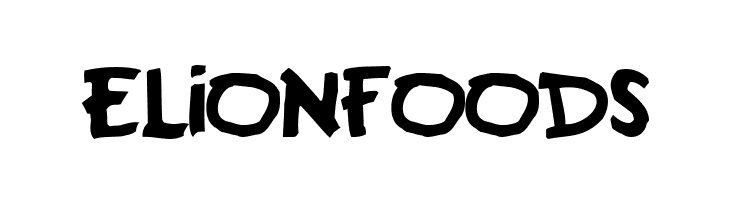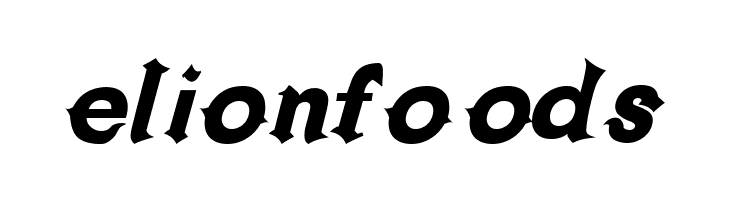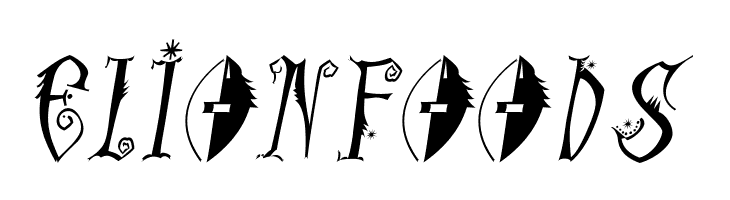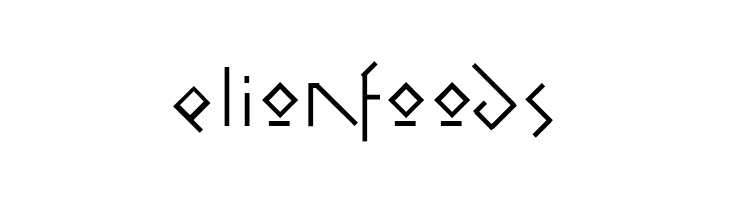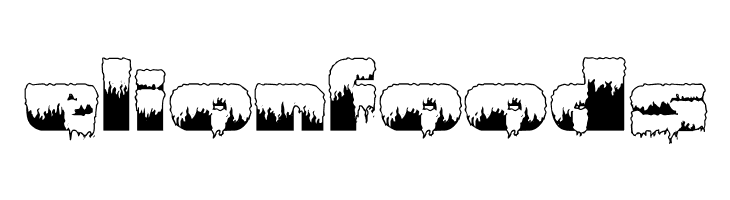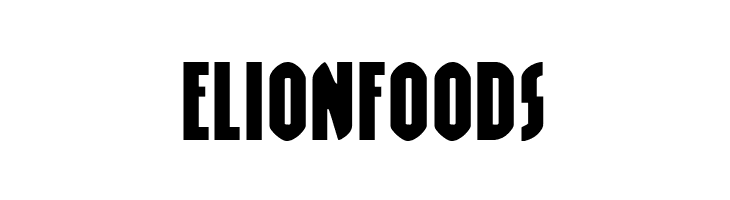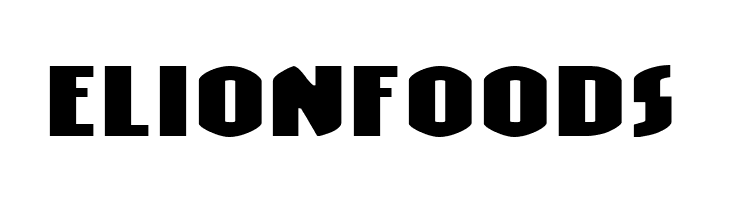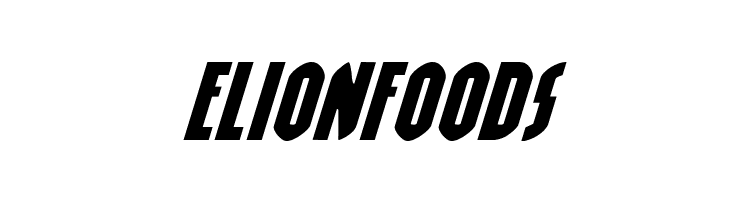
• GrafFittyPunk
An edgy, punk-inspired font with sharp angles and whimsical embellishments.
• Gramius 'Blizzard'
• Grappa
• GreeKish
A geometric, angular font with a futuristic and bold style.
• greenbeans Thin
A playful, hand-drawn font with tall, narrow letters and a whimsical style.
• Gremlins
• Grendel's Mother
A bold, geometric font with a vintage poster style.
• Grendel's Mother Exp Italic
A bold, italicized font with angular, dynamic characters.
• Grendel's Mother Expanded
A bold, geometric font with an expanded width and striking angular design.
• Grendel's Mother Extra Exp
A bold, geometric font with a modern and dynamic style.